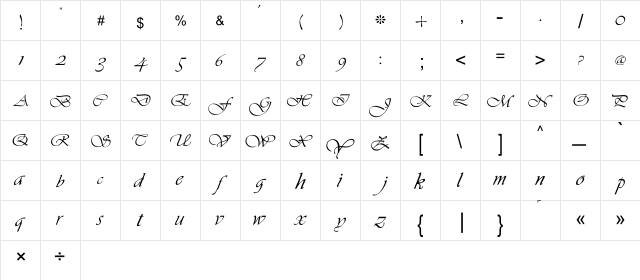
Mangrio_Aziz_Aftab_Talpur_Styli Regular
| Designer | Abdul-Aziz Mangrio |
Design Context for Mangrio_Aziz_Aftab_Talpur_Styli Typeface
Mangrio_Aziz_Aftab_Talpur_Styli takes a measured approach to typography — its balanced proportions and neutral character make it a reliable workhorse for both digital and print work.